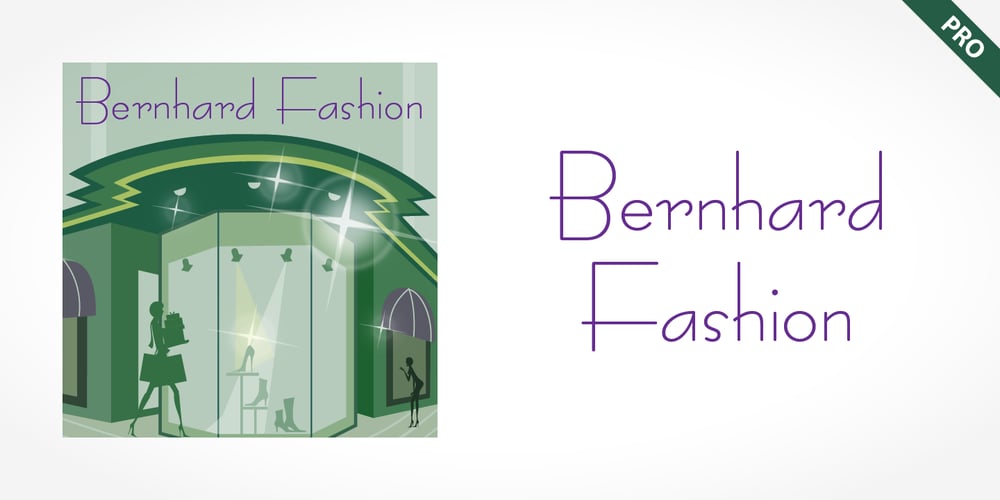
Bernhard Fashion Pro Font Family was designed by Lucian Bernhard and published by SoftMaker. Bernhard Fashion Pro contains 1 styles and family package options. Lucian Bernhard designed this typeface for American Type Founders in 1929. Bernhard Fashion sports tall ascenders, stylish embellishments, and much taller than normal capitals that drop below the baseline. This extra light typeface radiates elegance and lightness. SoftMaker’s Bernhard Fashion Pro typeface comes with a huge character set that covers not only Western European languages, but also includes Central European, Baltic, Croatian, Slovene, Romanian, and Turkish characters. Case-sensitive punctuation signs for all-caps titles are included as well as many fractions, an extensive set of ligatures, and separate sets of tabular and proportional digits.